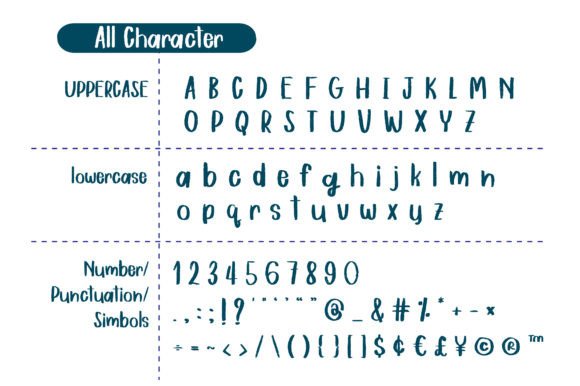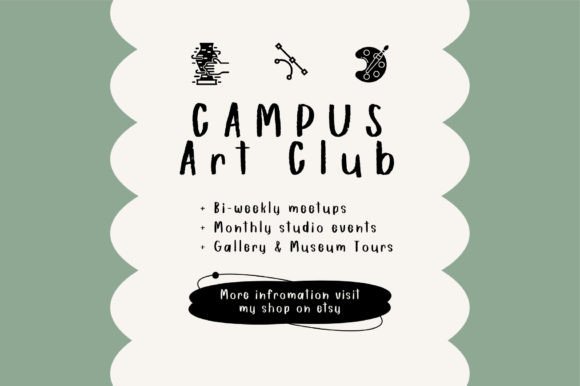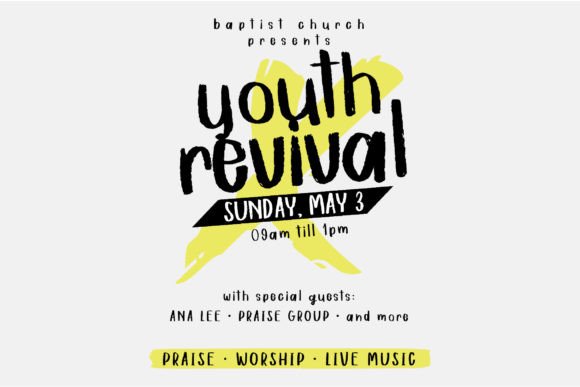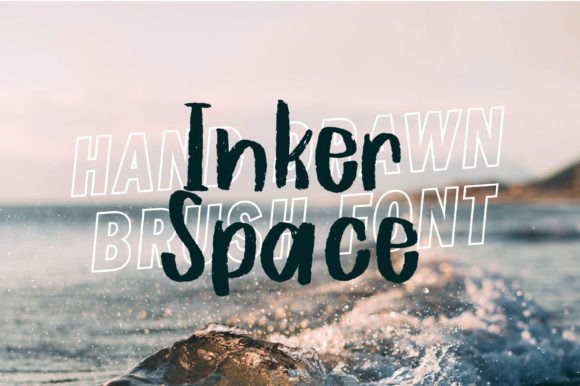
Introduction to Inkerspace Font
Have you ever found yourself lost in a sea of digital notes, struggling to make sense of your creative project’s plan? We’ve all been there – overwhelmed by the sheer amount of information, desperate for a way to organize our thoughts and bring clarity to our ideas. For designers, this is a constant battle, and it’s where the Inkerspace Font comes in – a game-changing addition to your design toolkit.
This free download has been crafted with love and care, offering a high-quality, transparent background that elevates your digital planning and note-taking experience. The Inkerspace Font’s unique, handwritten aesthetic is not only visually appealing but also conveys a sense of approachability and friendliness – perfect for designers who want to add a personal touch to their work.
As a valuable design resource, the Inkerspace Font is poised to revolutionize the way you approach creative projects. With its versatility and charm, it’s an essential tool for anyone looking to elevate their digital design game.
Inkerspace Font
- High-quality vector font with a transparent background, ideal for creative projects that require a touch of elegance.
- Resolution-independent design ensures crisp and clear text, even at high resolutions, making it suitable for print and digital media.
- Unique characteristics include intricate ink-like textures and subtle nuances that add depth and character to any design.
- Perfect for use in creative projects such as posters, flyers, business cards, and other design materials where a high-quality font is required.
- Designed to be a design resource that can be used in various contexts, from personal projects to commercial endeavors.
Honest Review: Inkerspace Font
I recently had the opportunity to work with the Inkerspace Font, and I must say, it’s been a game-changer for my creative projects. This font is a fantastic addition to any design resource library, especially for those looking for a high-quality, free download.
- ✨ Beautifully designed characters with a unique touch
- ✨ High-quality images with a transparent background, making it easy to work with
- ✨ Perfect for a variety of creative projects, from branding to editorial design
- ⚠️ Some characters may not be fully compatible with older software or operating systems
For the best results, use Inkerspace Font on a transparent background to create a high-quality design. This font is perfect for creative projects, such as graphic design, digital art, and more.
Inkerspace Font is ideal for use in a variety of design projects, including logos, business cards, brochures, and social media graphics. Its high-quality design and transparent background make it a valuable resource for designers and creatives.